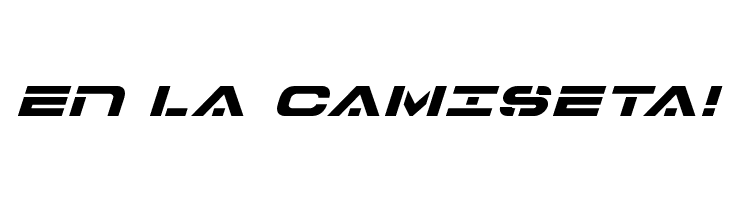
A playful cursive font with fluid, connected characters and a nostalgic charm.
• 5Threezy Regular
A bold, geometric, pixelated font with a modern, digital aesthetic.
• 5Winter Sans Regular
• 7th Service Expanded Italic
A bold, expanded, and italicized font with a futuristic and dynamic style.
• 7th Service Italic
A bold, italic, futuristic font with geometric precision and dynamic style.